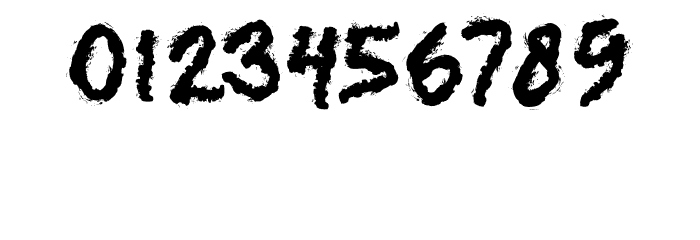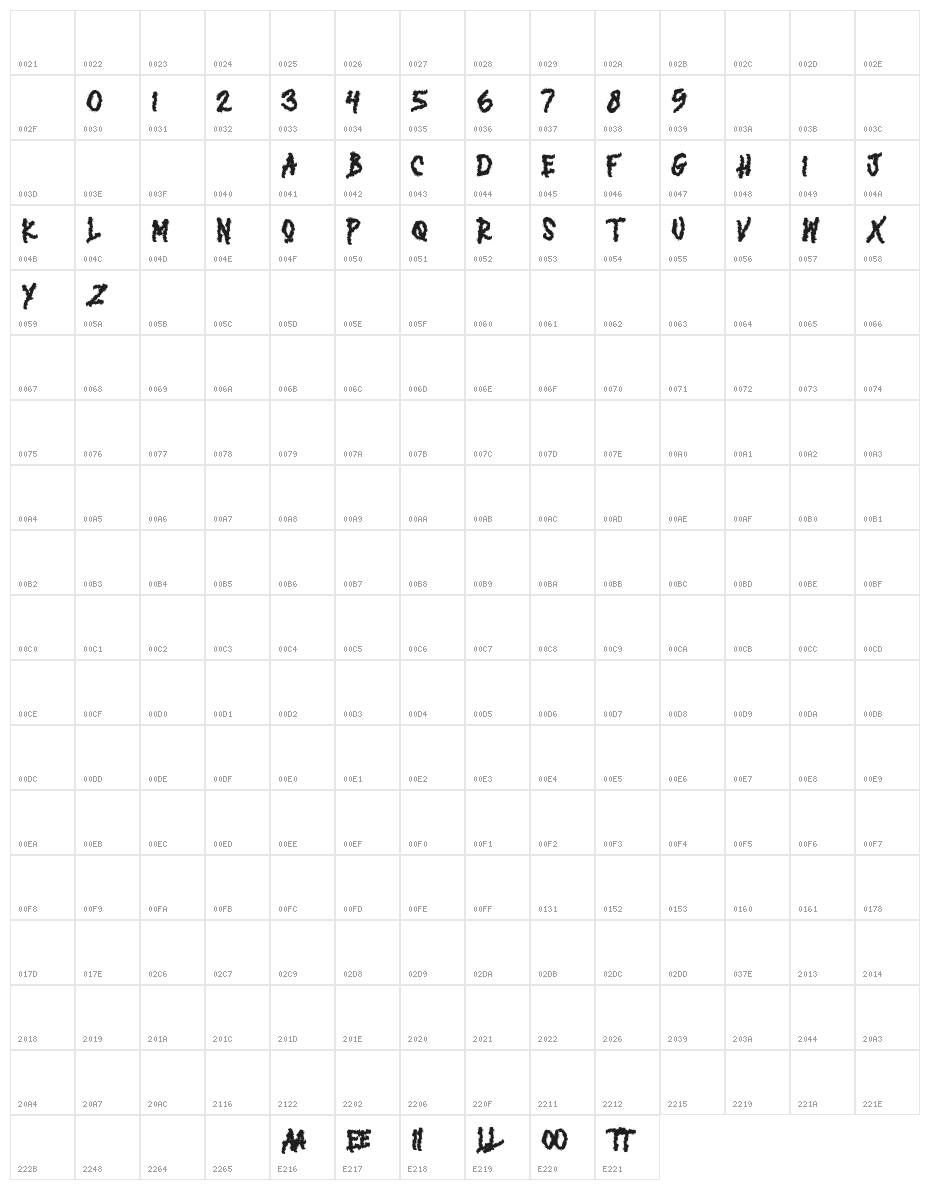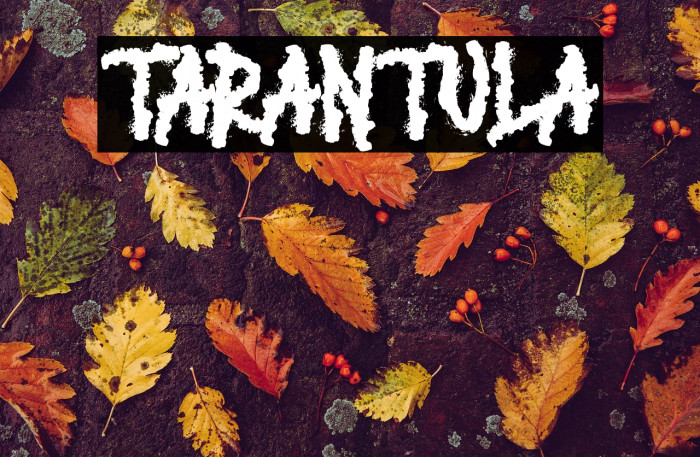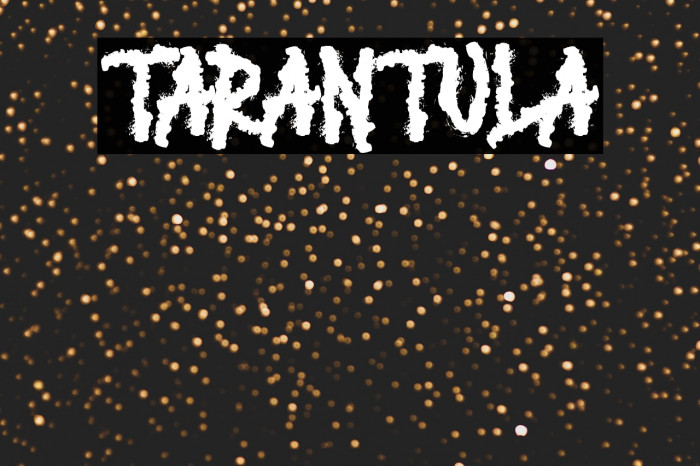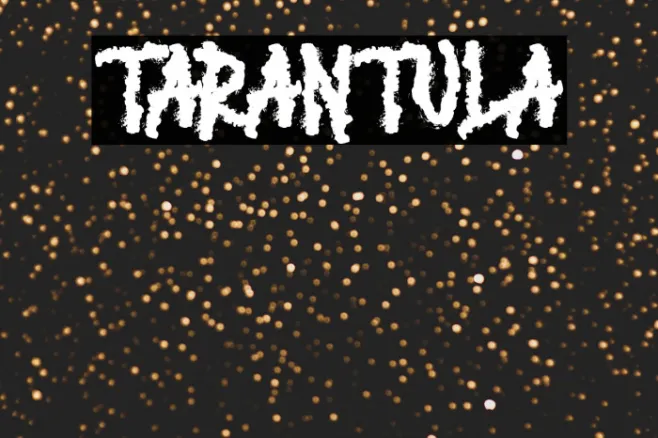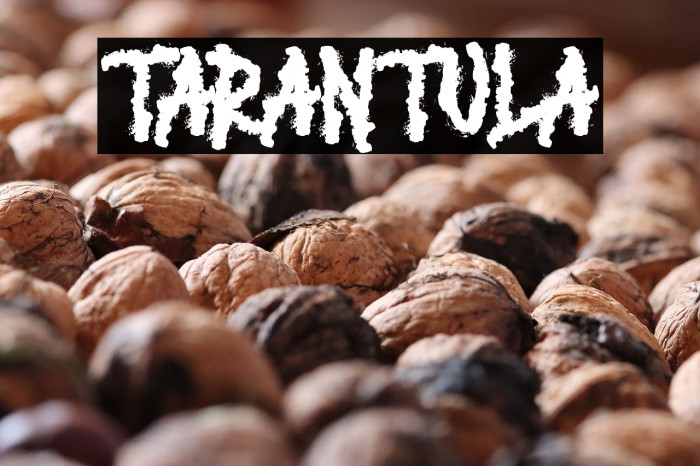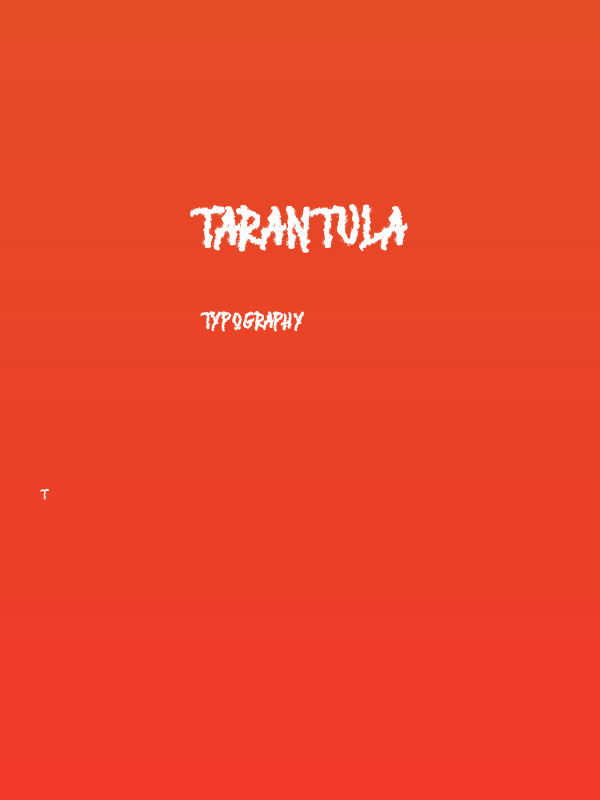
TARANTULA Font
TARANTULA Description
This font features a bold and textured style, reminiscent of rough brush strokes or a distressed effect. Each character appears to have been hand-drawn, with irregular edges and a dynamic, energetic feel. The uppercase letters are robust and commanding, while the numerals maintain the same rugged aesthetic. The overall appearance is striking and attention-grabbing, making it suitable for designs that require a strong visual impact. The texture adds depth and character, making it ideal for creative projects that aim to convey a sense of rawness or authenticity.